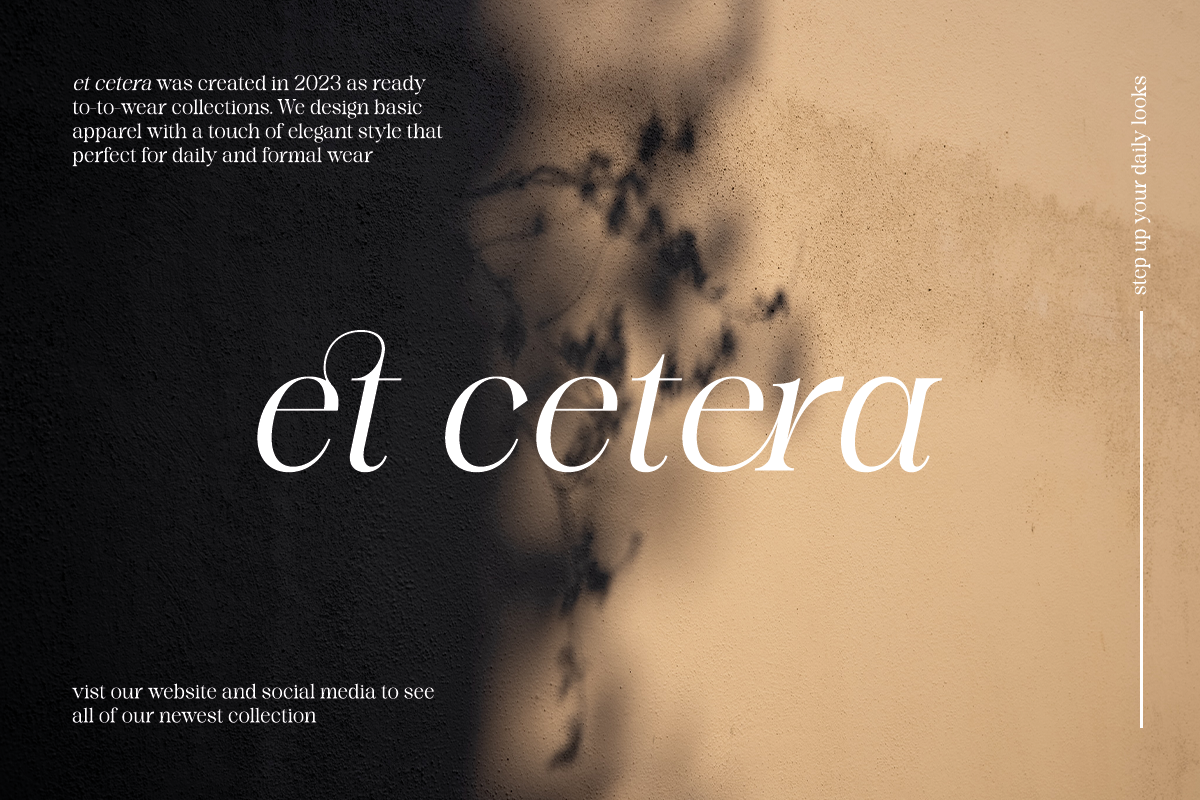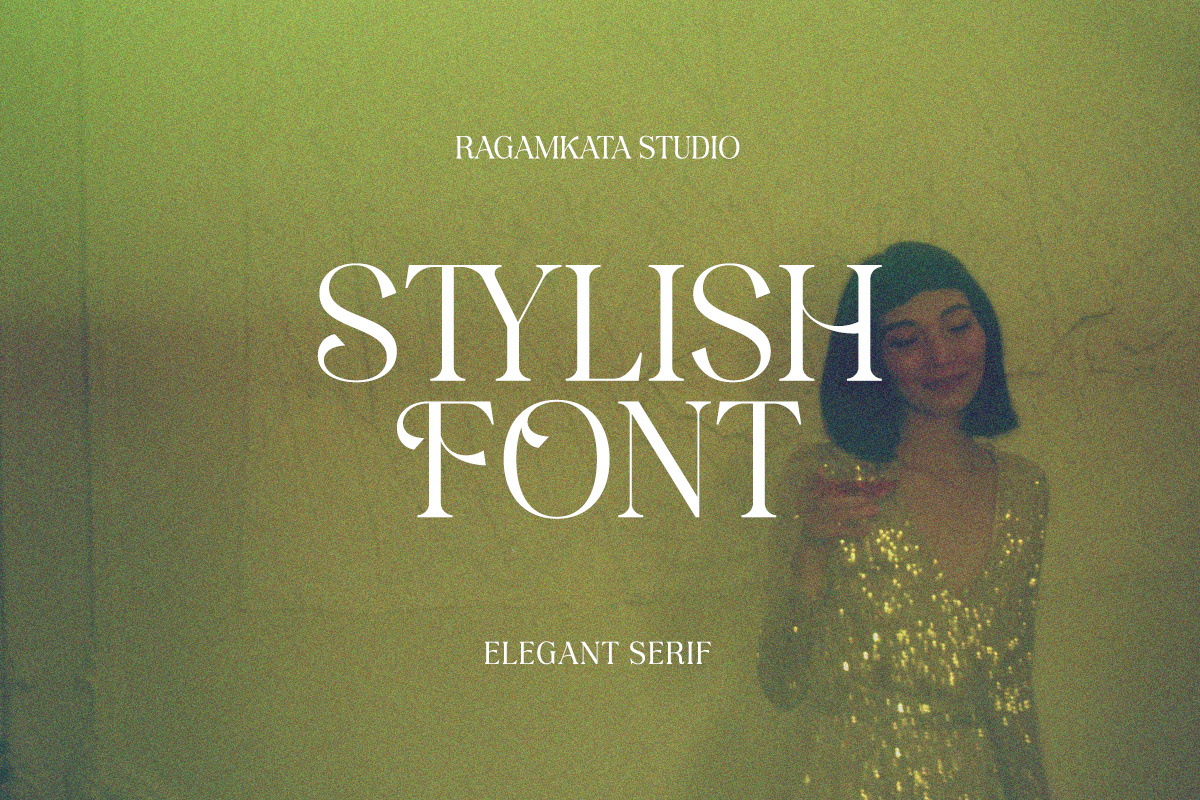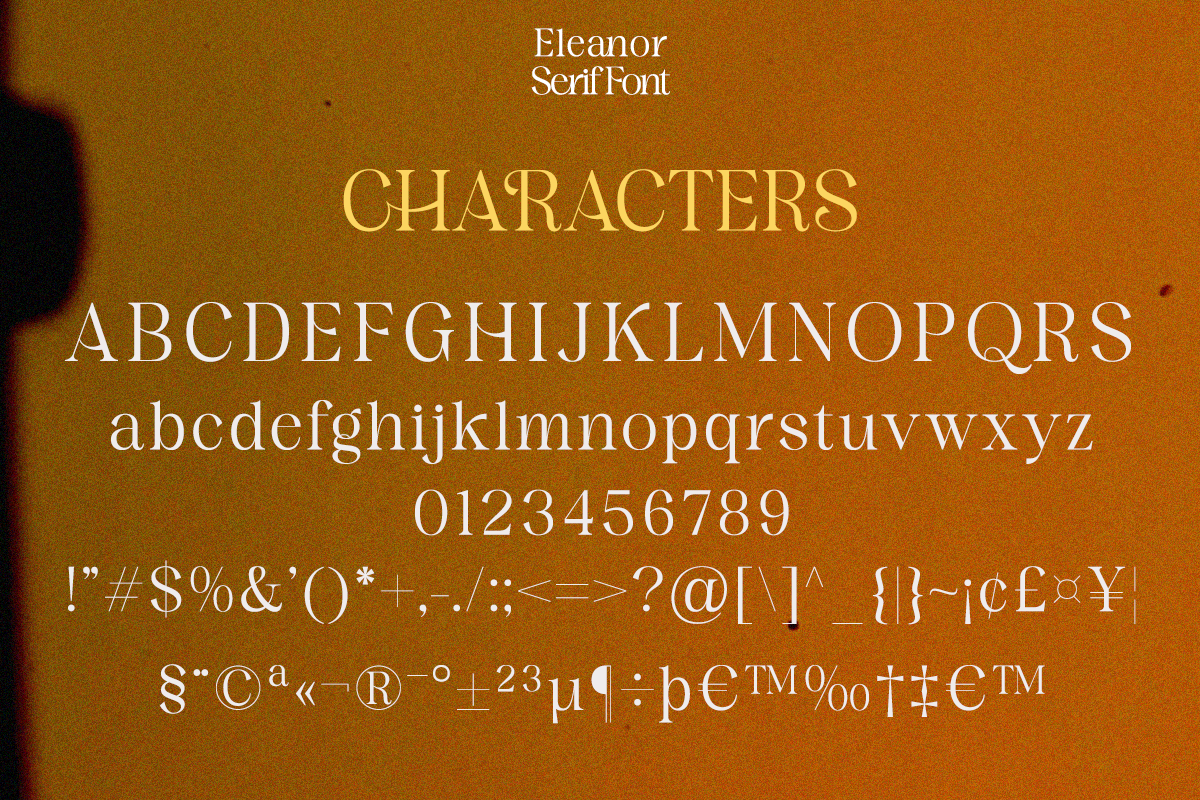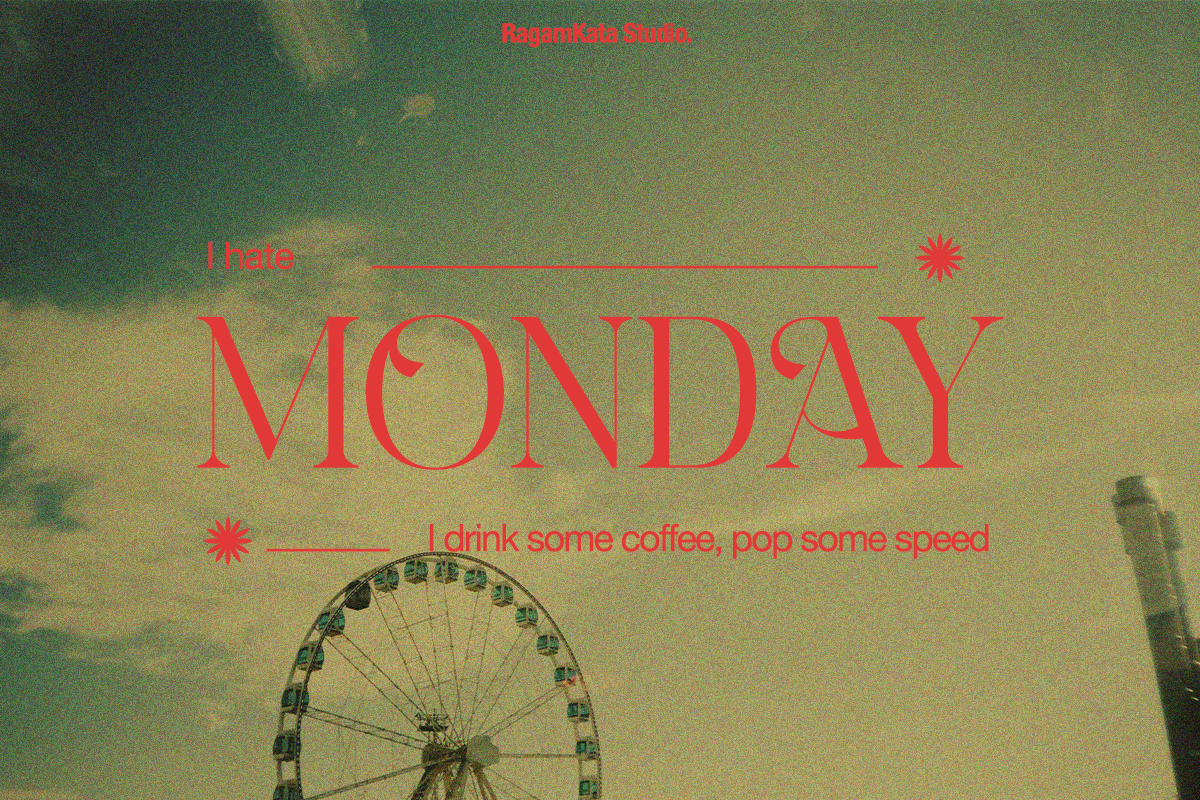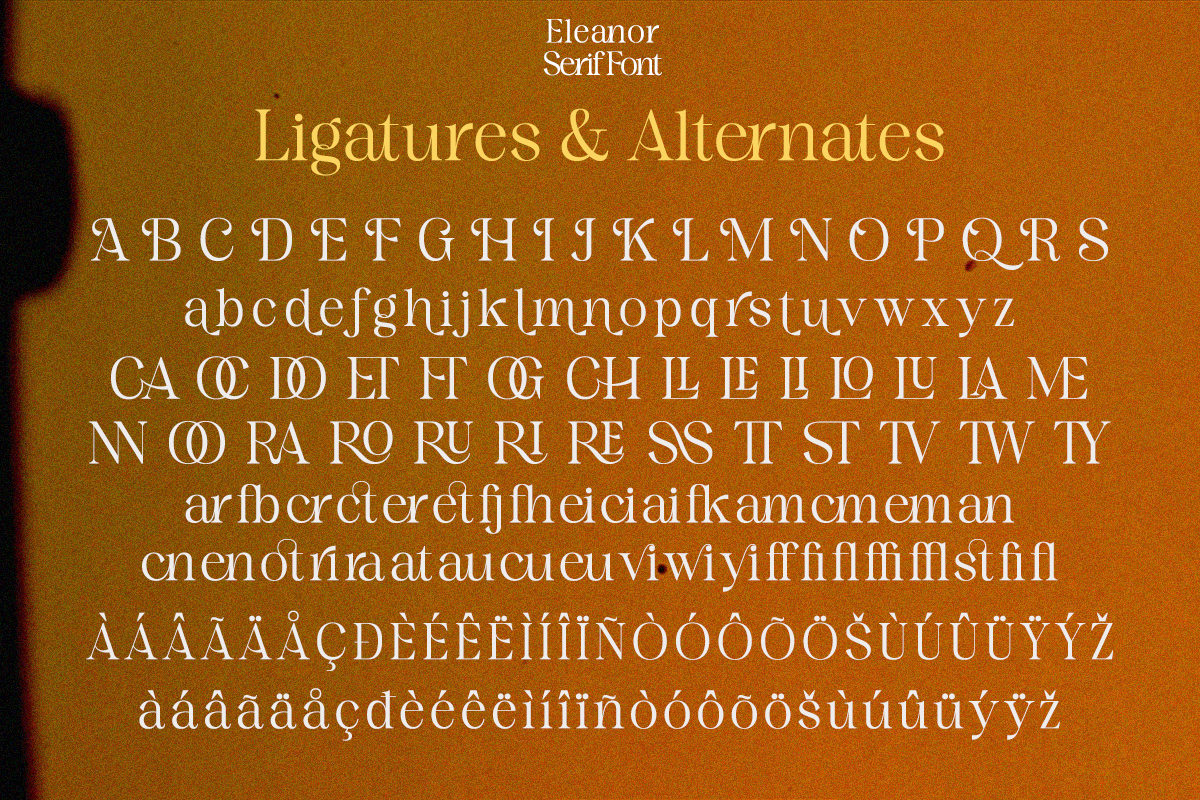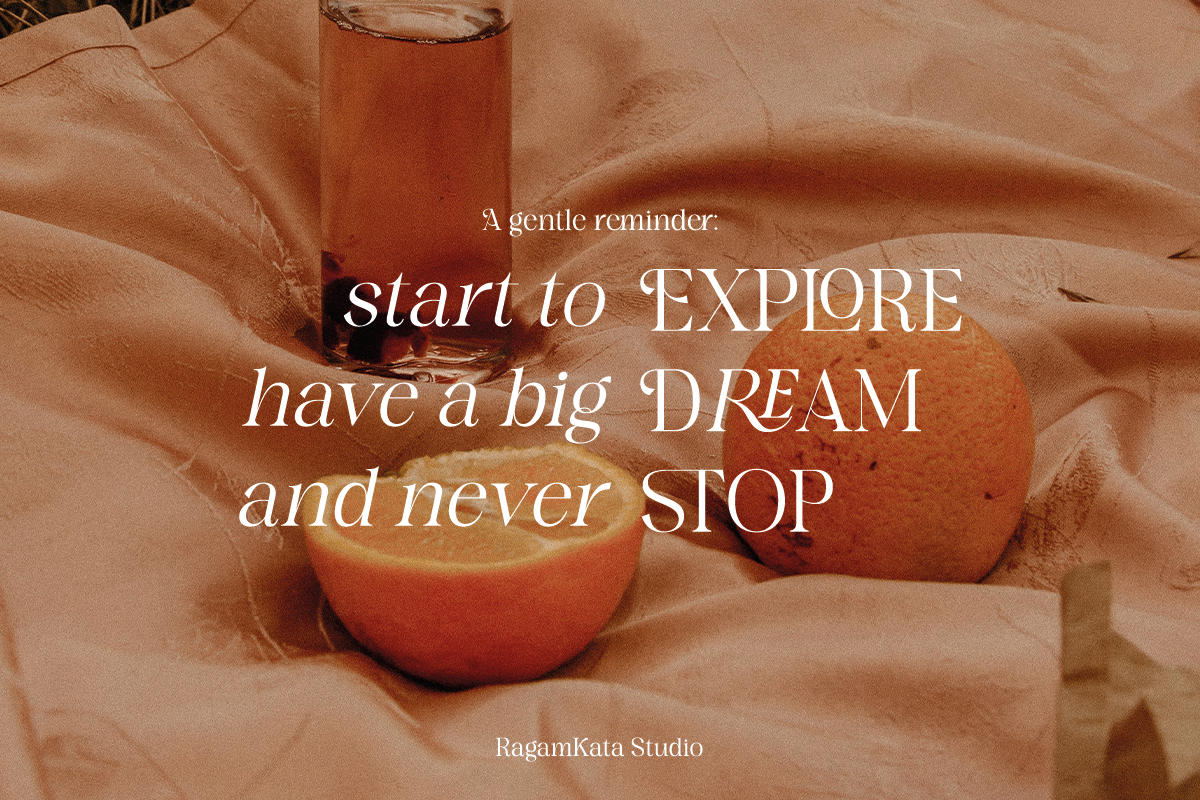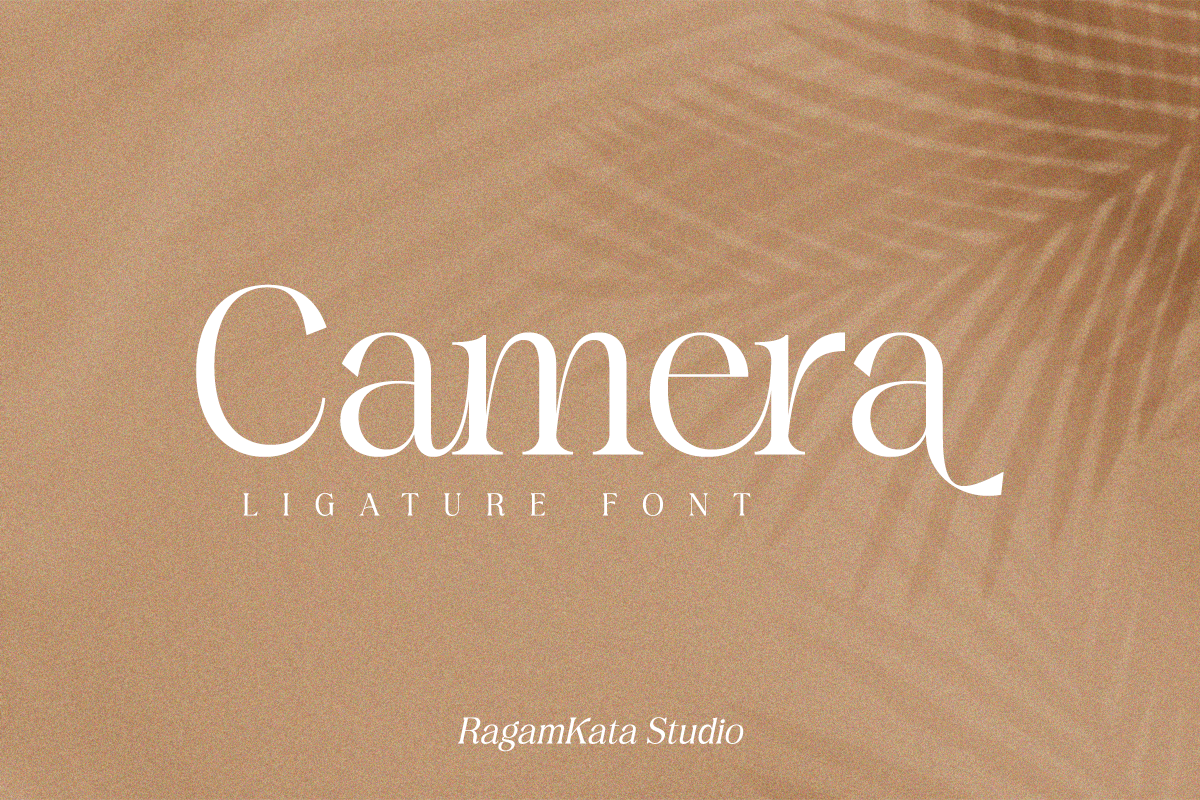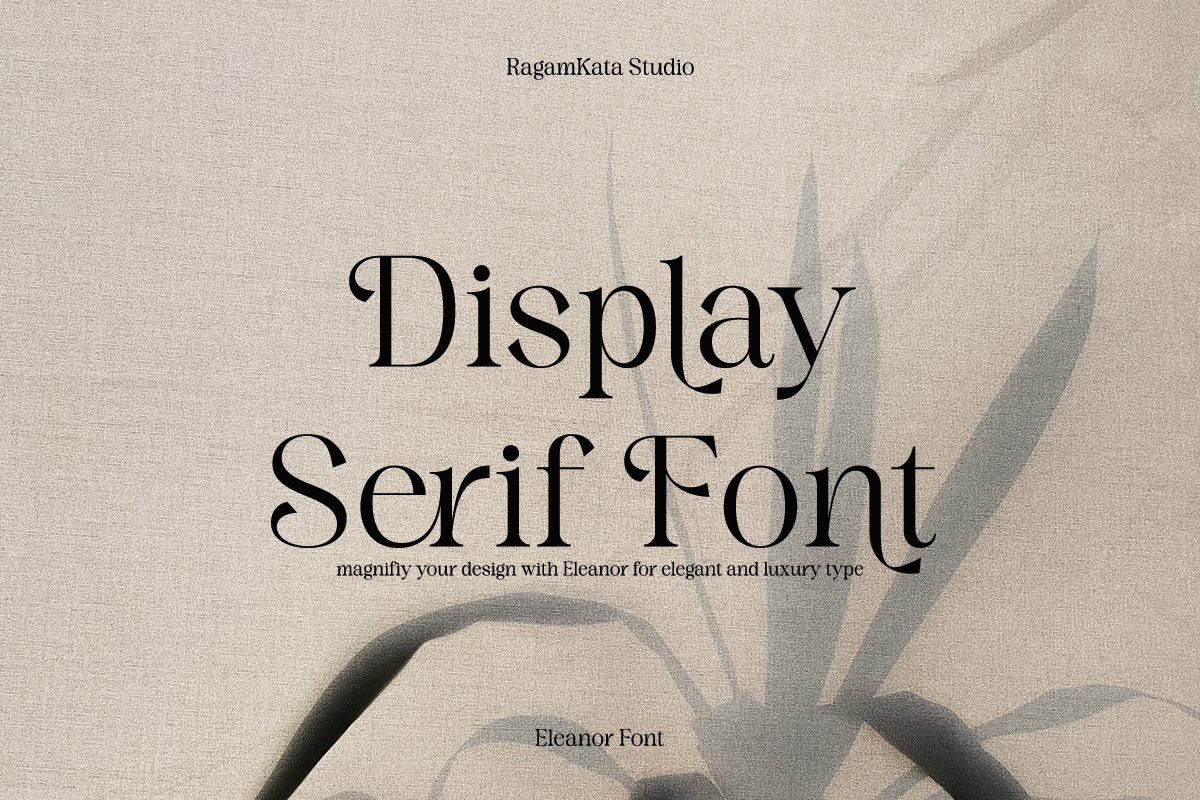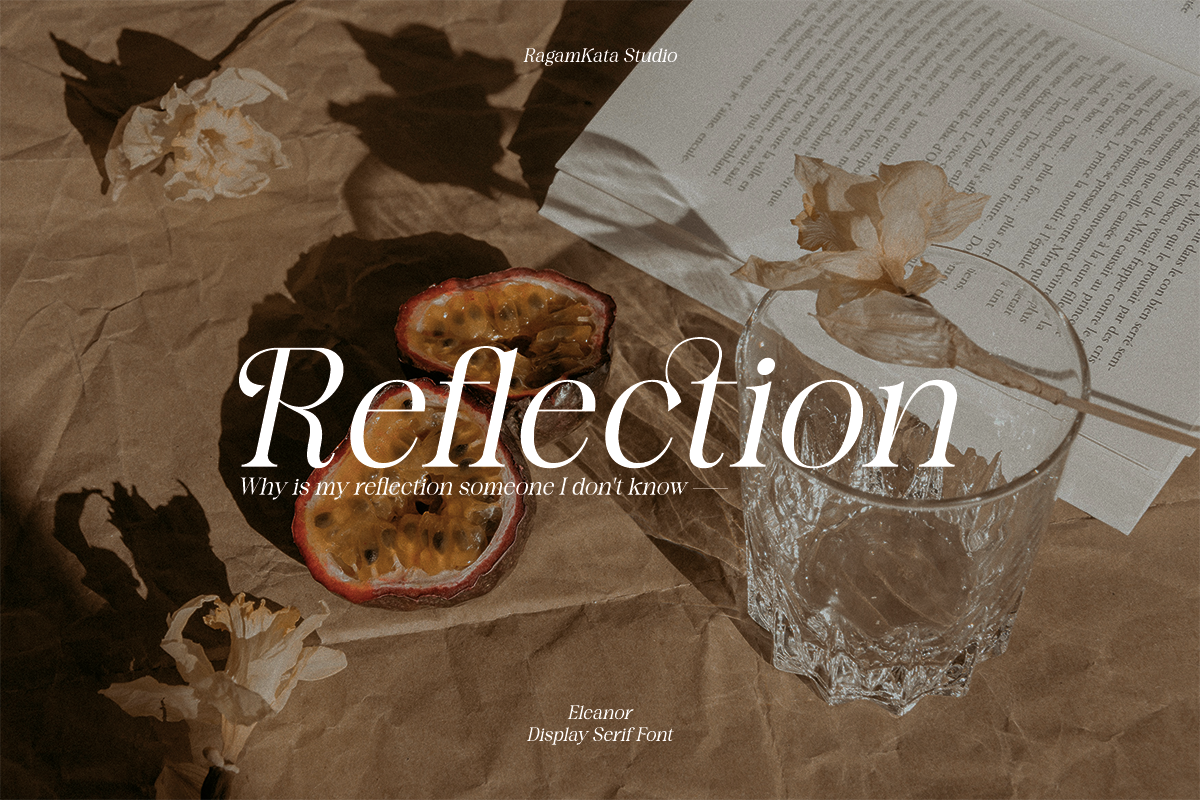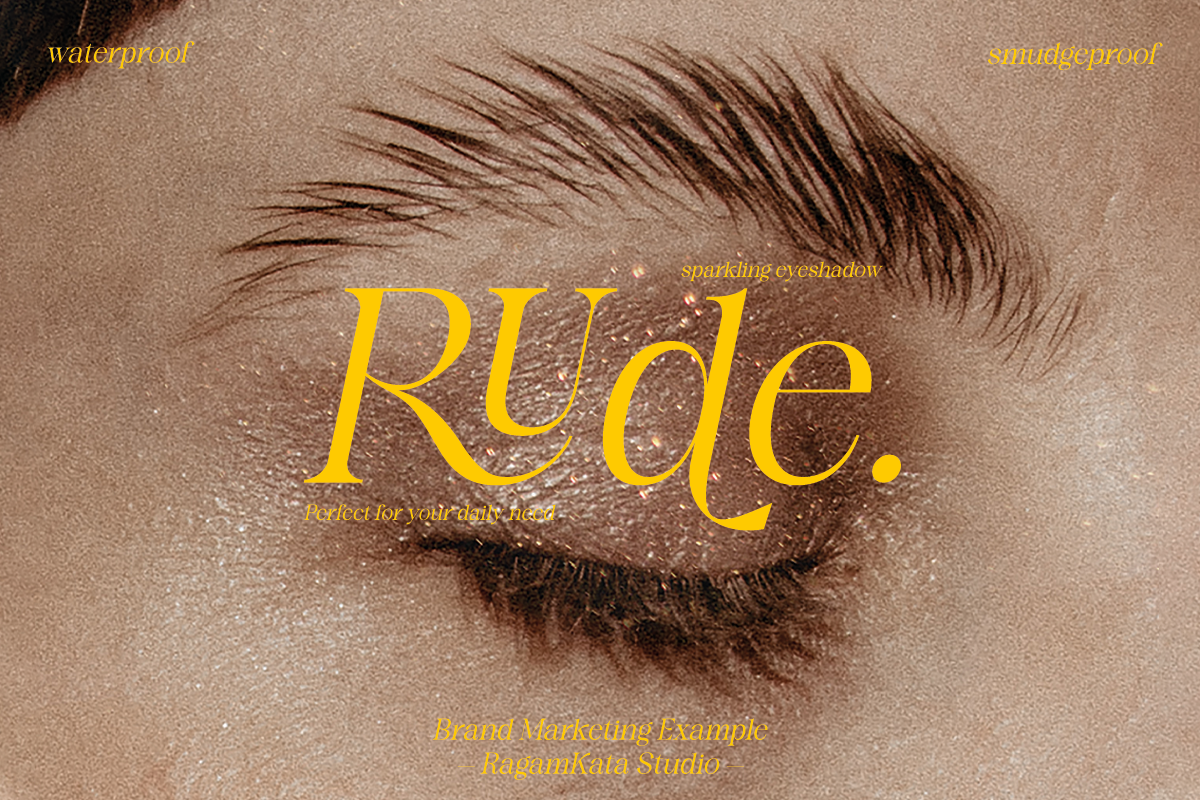
Eleanor - Stylish Classic Typeface
Eleanor is a stylish and classic typeface and twist harmoniously together. The Eleanor font style will make you love designing and taking advantage of the cool designs for this font. Keep following us for updates on making further fonts
Feature:
- Regular And Italic
- Standard uppercase and lowercase letters
- Lots of ligatures
- Alternatives
- Modern classy style